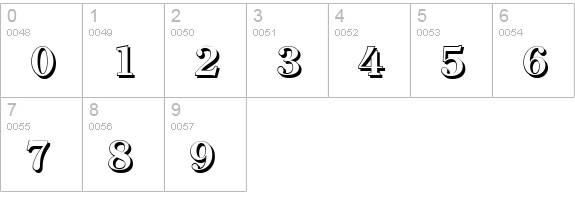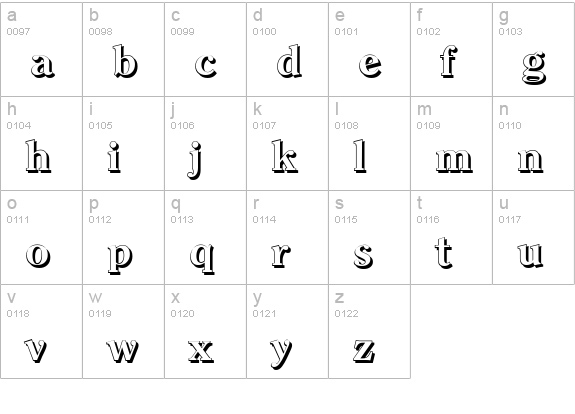
ClearfaceShadow-Bold Font Details
ClearfaceShadow-Bold is a strong, high-contrast variant in the ClearfaceShadow typeface family \xE2\x80\x94 well suited to headlines, attention-grabbing titles, and strong calls-to-action.
ClearfaceShadow-Bold is a bold and striking font that commands attention with its strong presence and distinct style. This font features clean lines and sharp edges, creating a modern and sleek look perfect for a variety of design projects. Whether used for headlines, posters, or branding materials, ClearfaceShadow-Bold is sure to make a bold statement. The best part is that ClearfaceShadow-Bold is available for free download at FontsMarket.com. This means you can easily access this eye-catching font and incorporate it into your projects without any cost. Don't miss out on the opportunity to enhance your designs with the impactful ClearfaceShadow-Bold font - download it for free today!